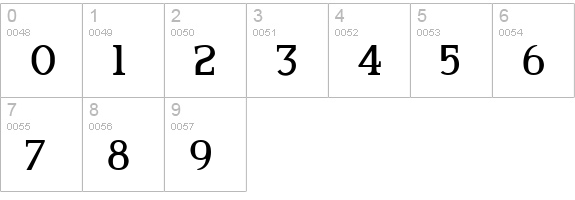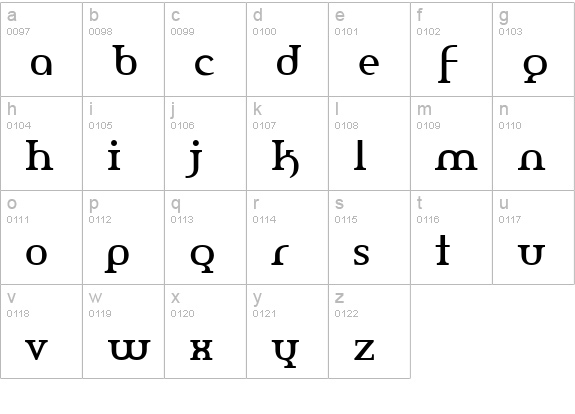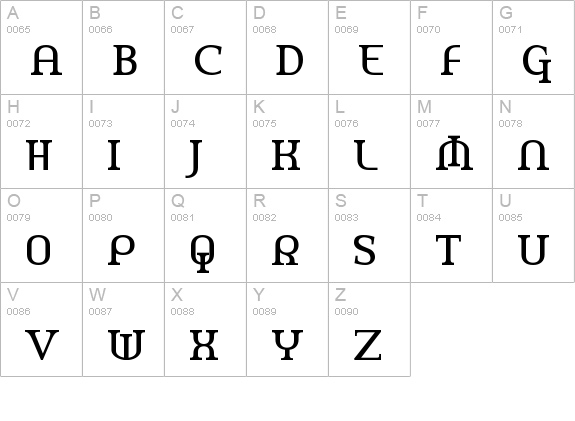
Amerika Font Details
Amerika font is a modern and stylish typeface that exudes sophistication and charm. With its sleek lines and contemporary design, Amerika font is perfect for a wide range of design projects, from logos to branding to headlines. This versatile font is sure to make a statement and leave a lasting impression. The best part about Amerika font is that it is completely free to download at FontsMarket.com. This means you can easily access this beautiful font and use it in your projects without any cost. Whether you are a professional designer or just looking to add a touch of elegance to your personal creations, Amerika font is the perfect choice. Download it today and elevate your designs with this stunning typeface.